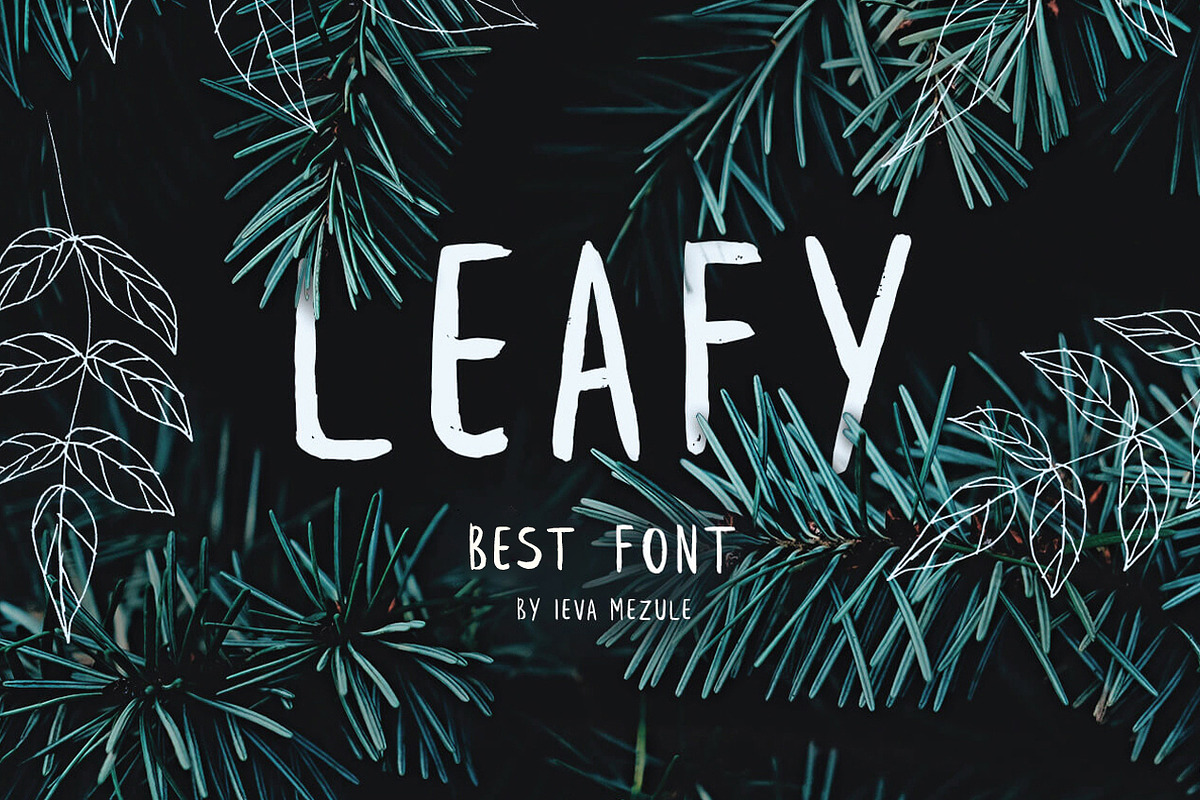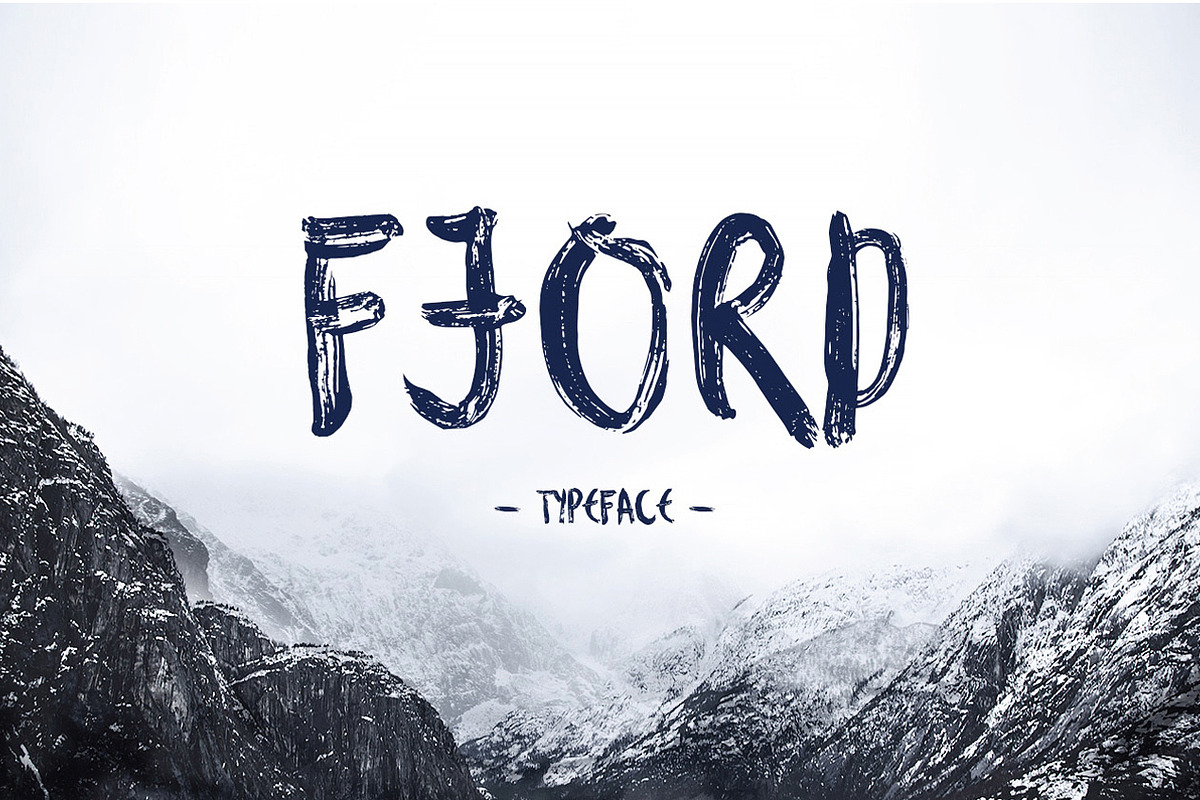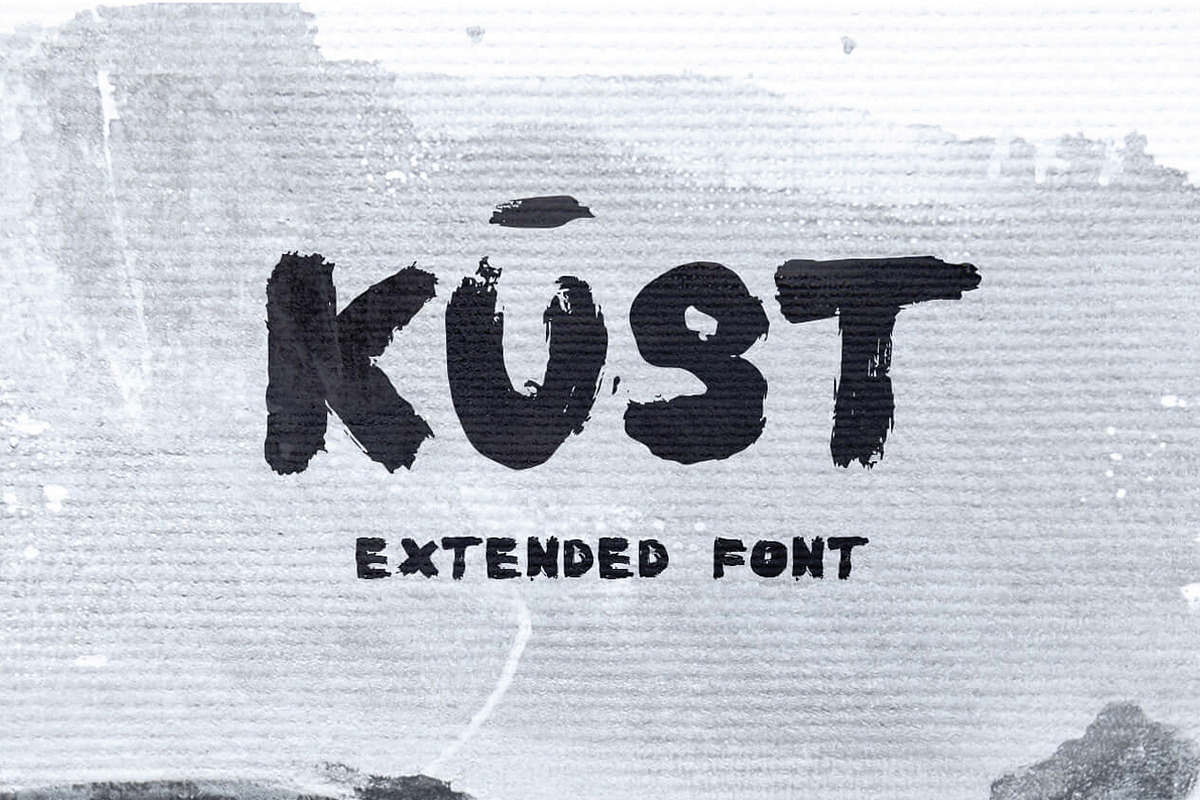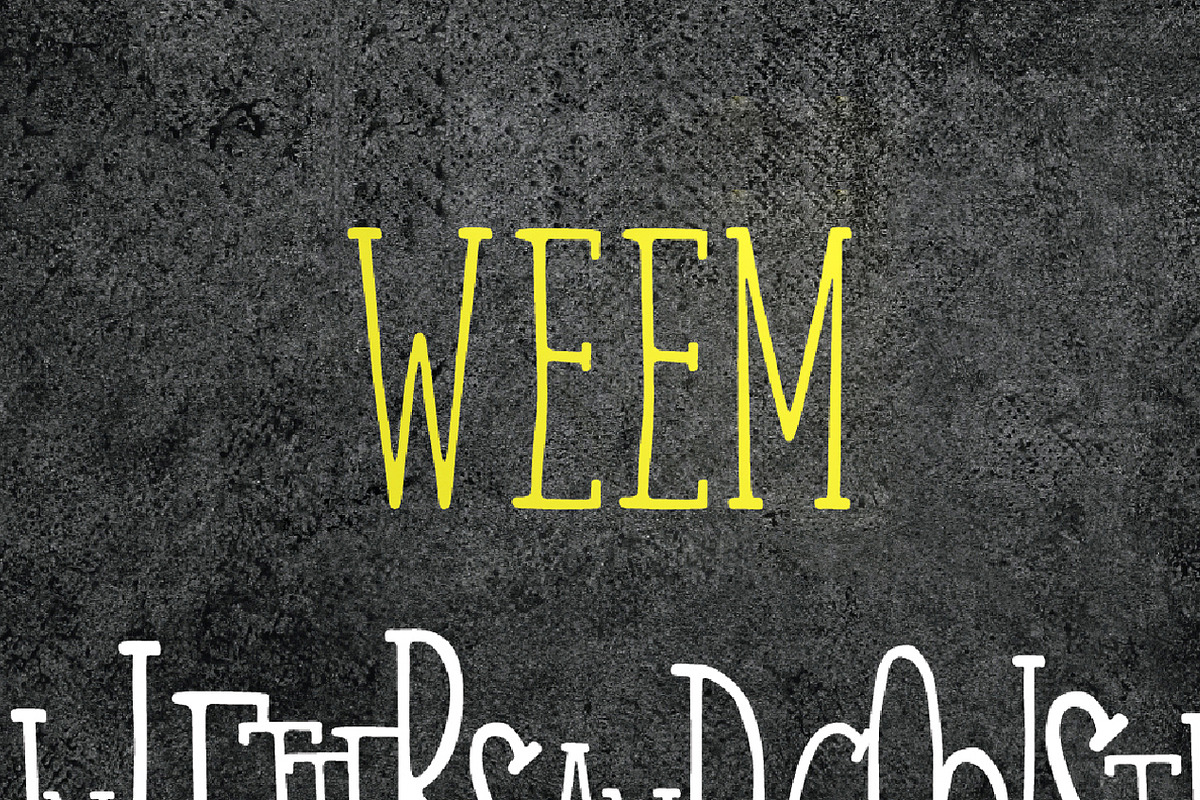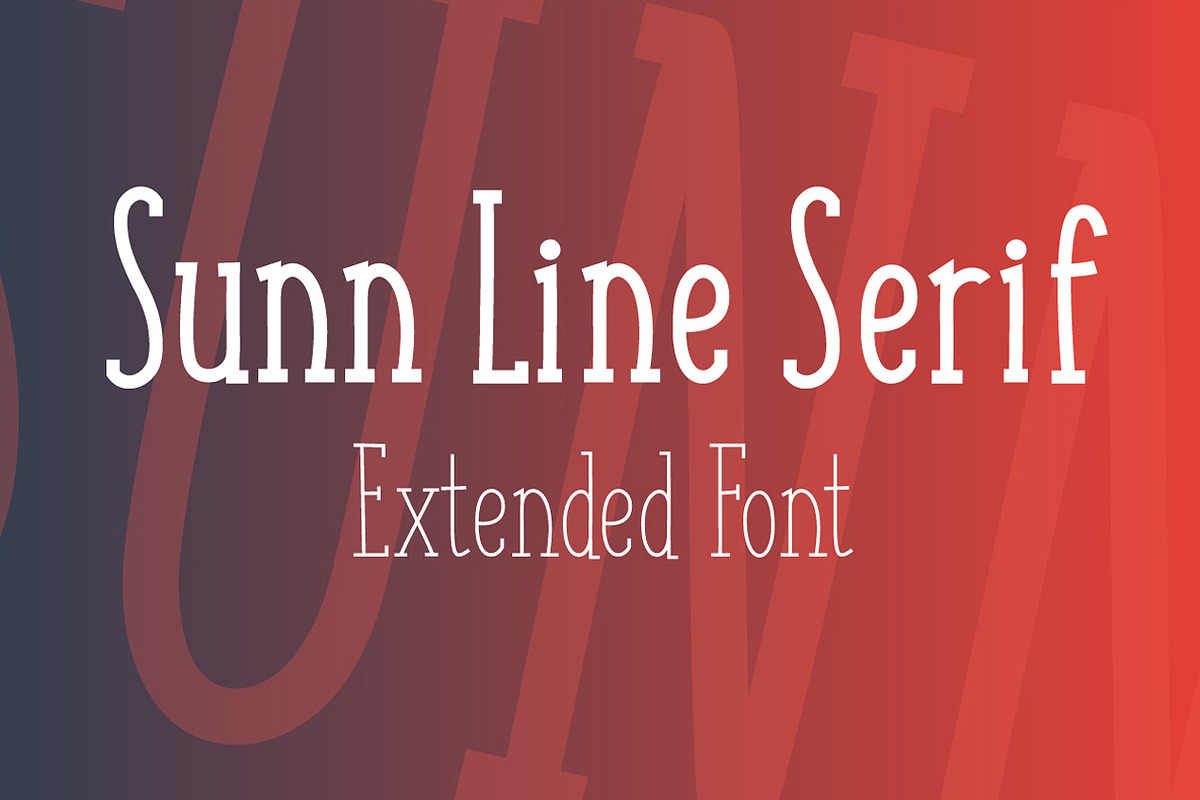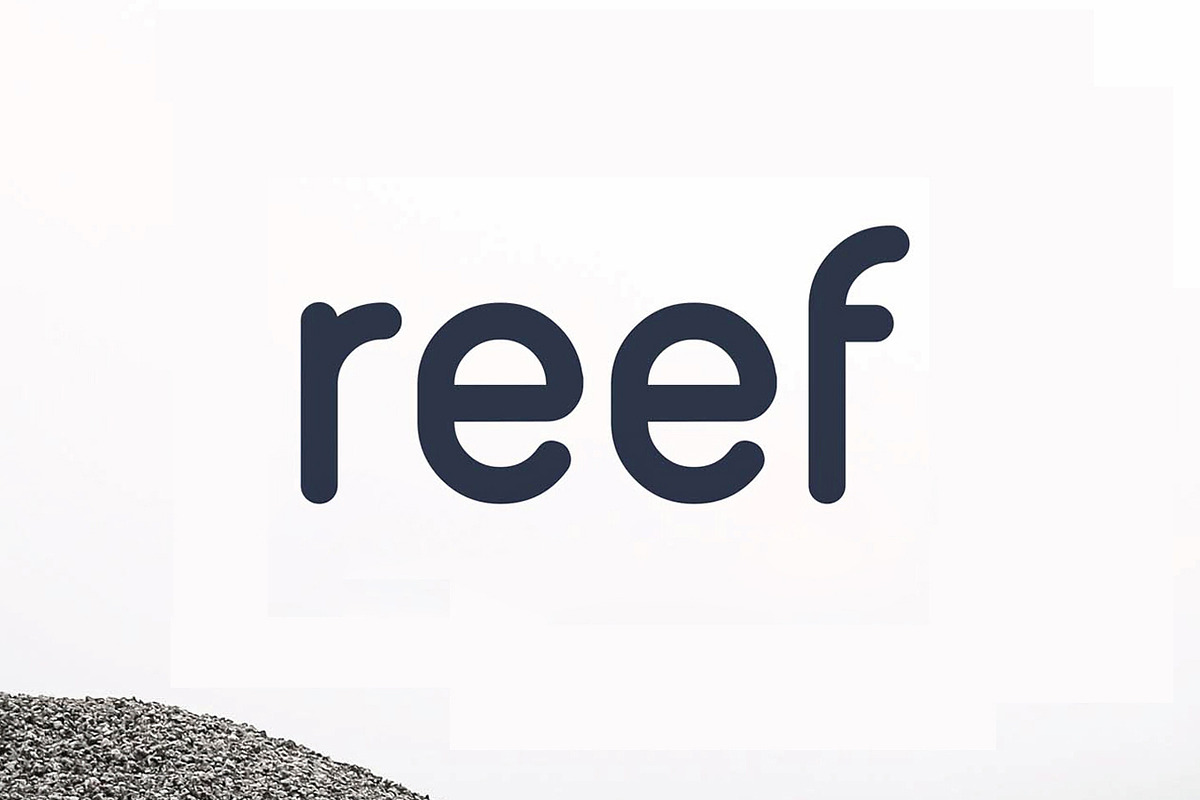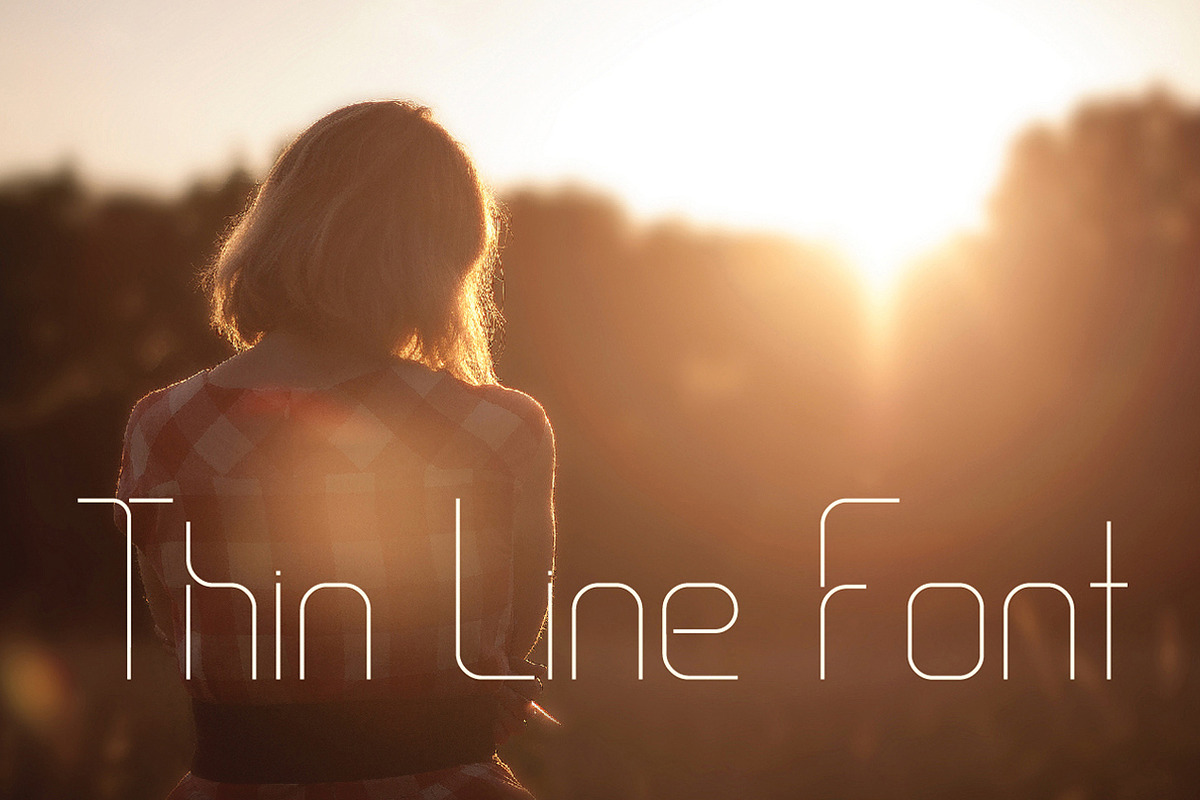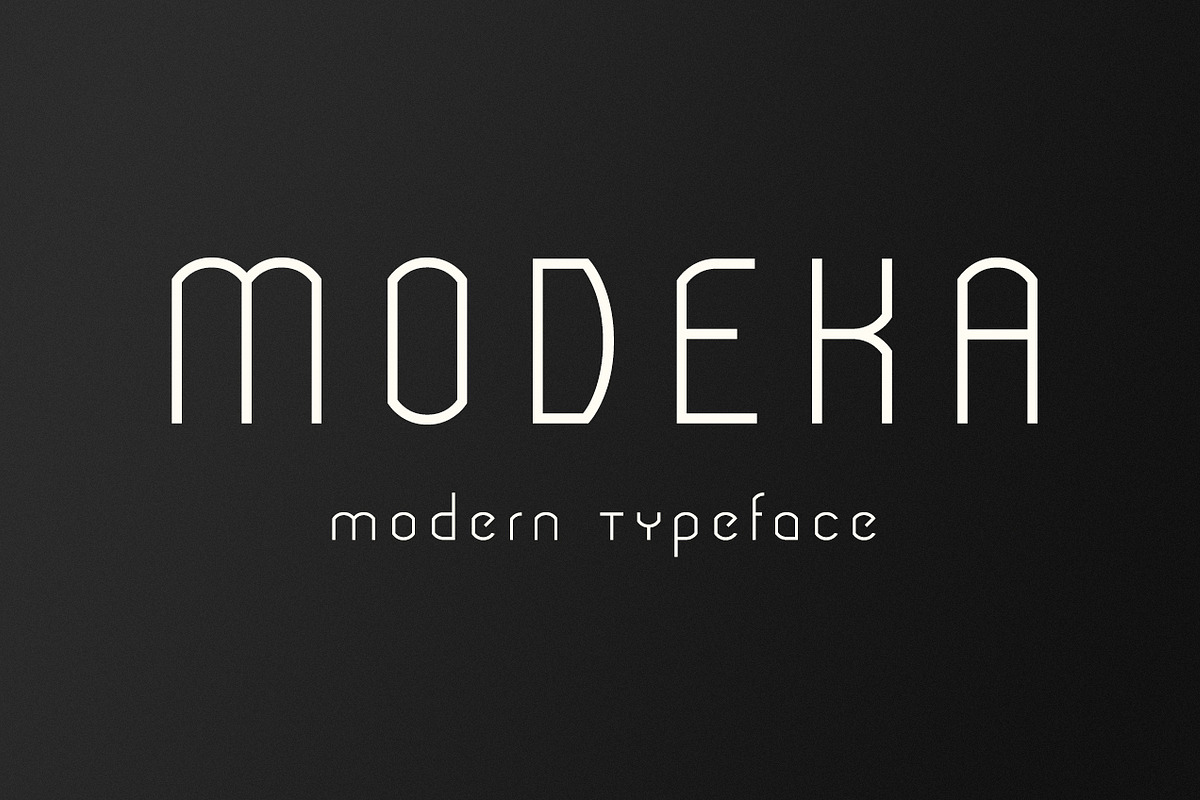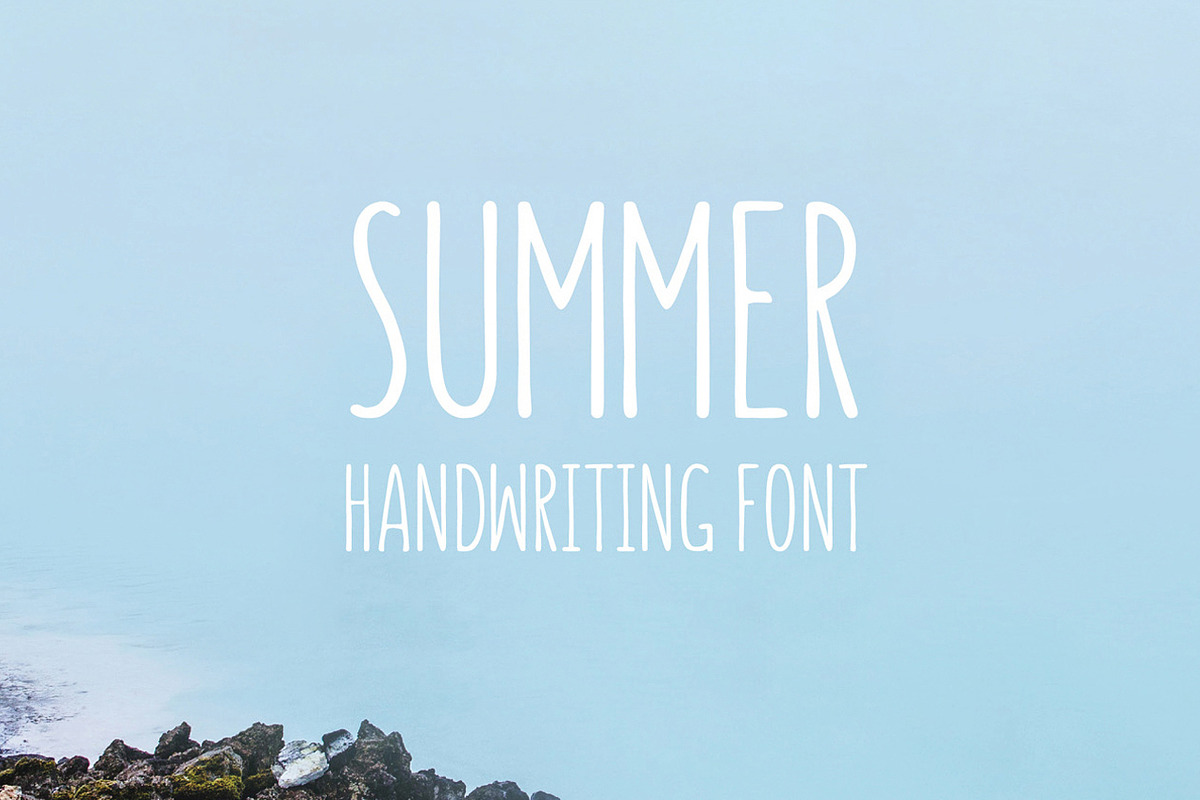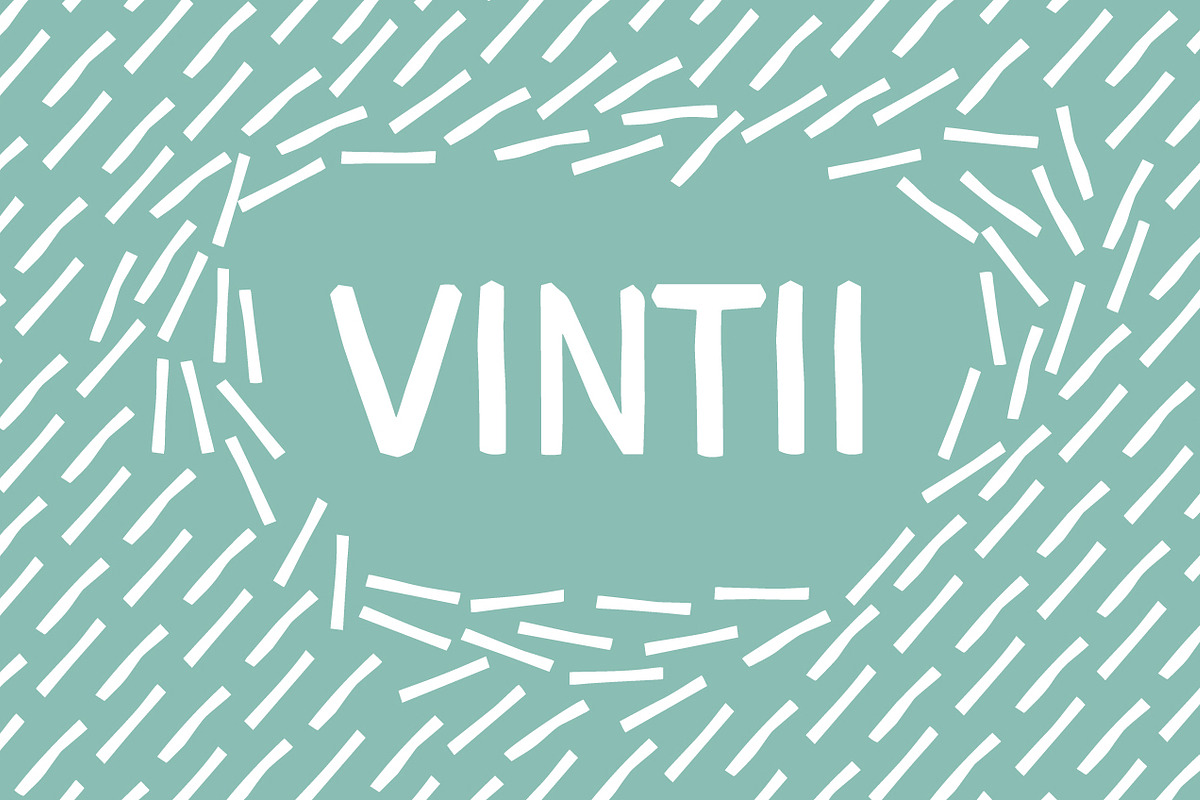
Wildones Font Bundle
We are super excited to release our first font bundle. All the fonts are hand made by our super talented team at WildOnes Studio. This is also our first blog post which is a big step for us, as you know blogging is a tough job :) We will write about everything we find important to us and hopefully for you as well.
We have had great success with our fonts and this calls for a party “Font Bundle Party”. The font bundle contains our best fonts, hand picked by us. To be precise it contains 16 fonts, from sans serif to handwritten brush fonts, also in the pack you will find our most successful fonts Besom Extended and Summer Font.